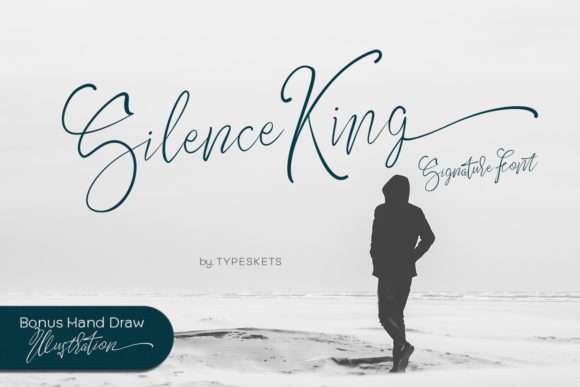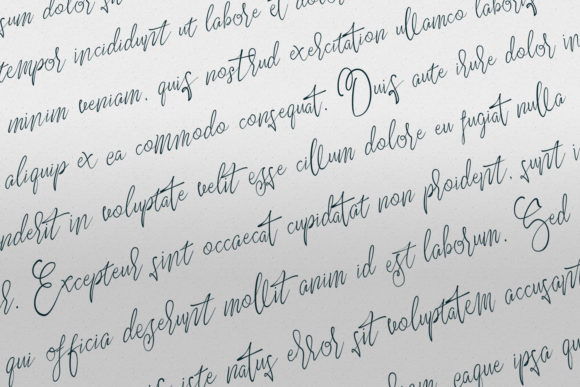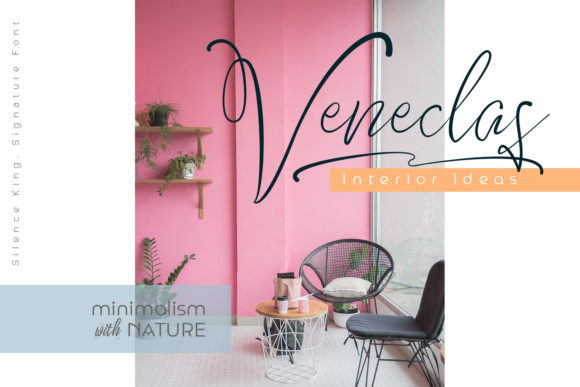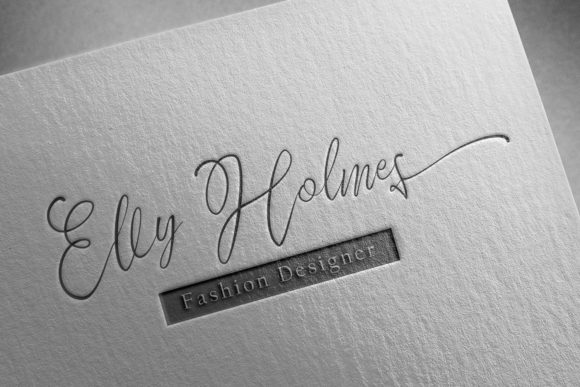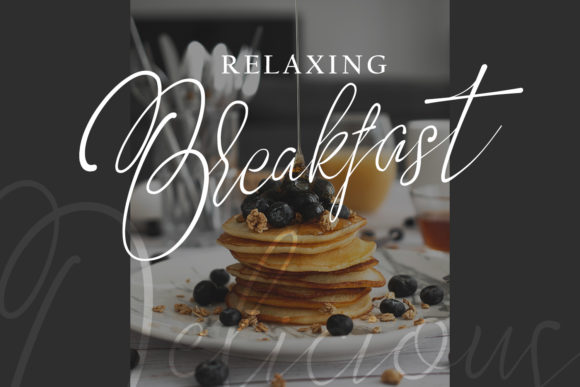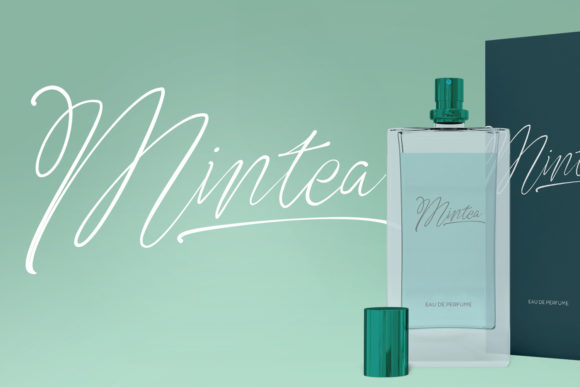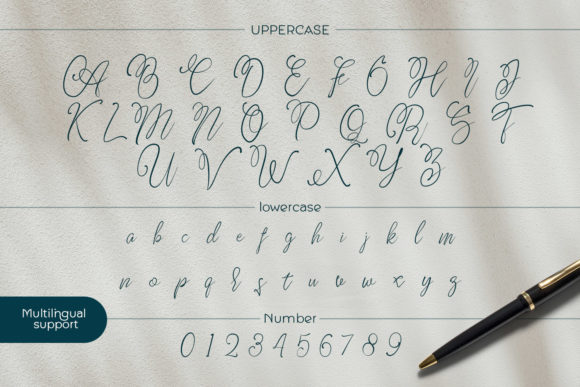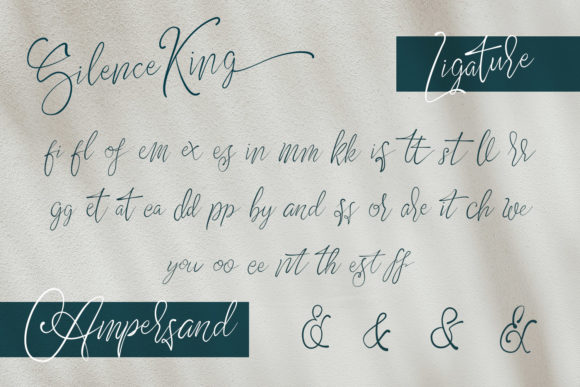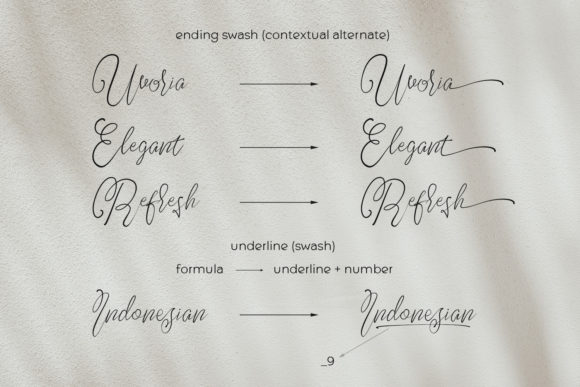
Silence King Font
About Silence King Font
Silence King is a signature script font hand-drawn that gives a natural, professional, classy impression.
This font can be used in a wide variety of applications from post cards, wedding invitations, to product highlights – the only limit is your imagination!